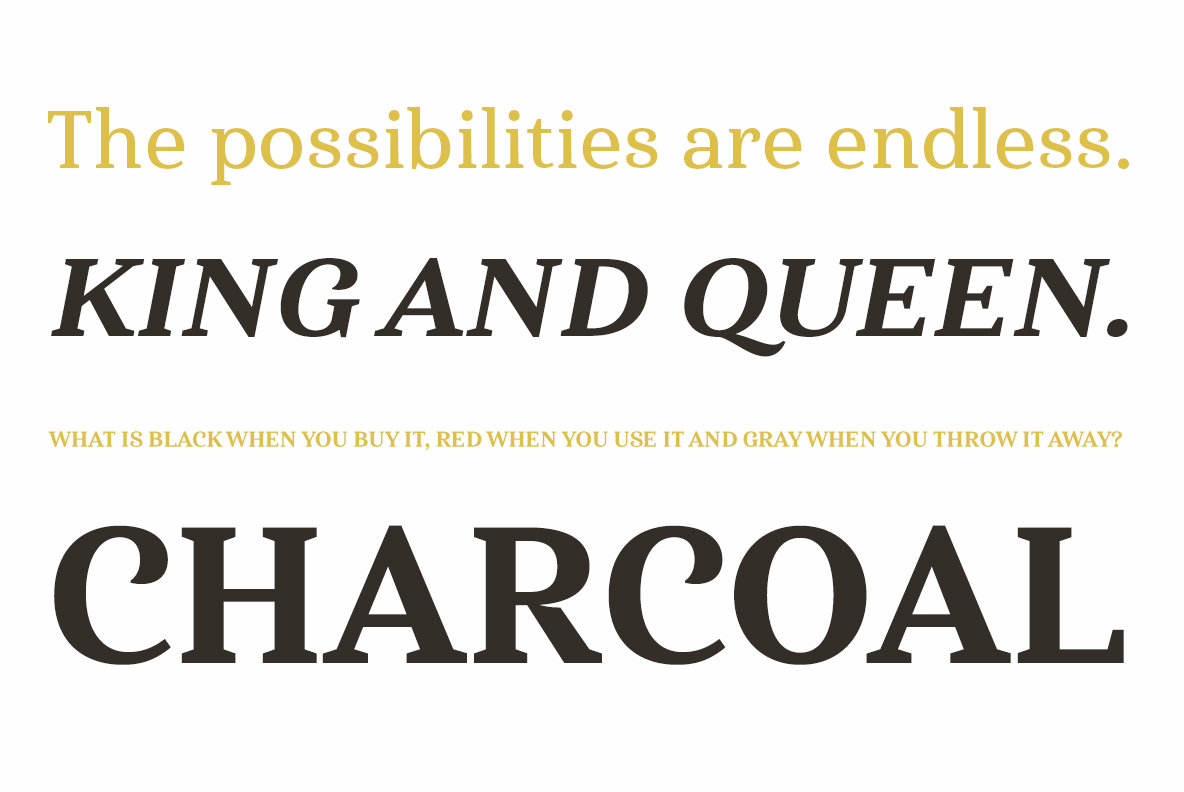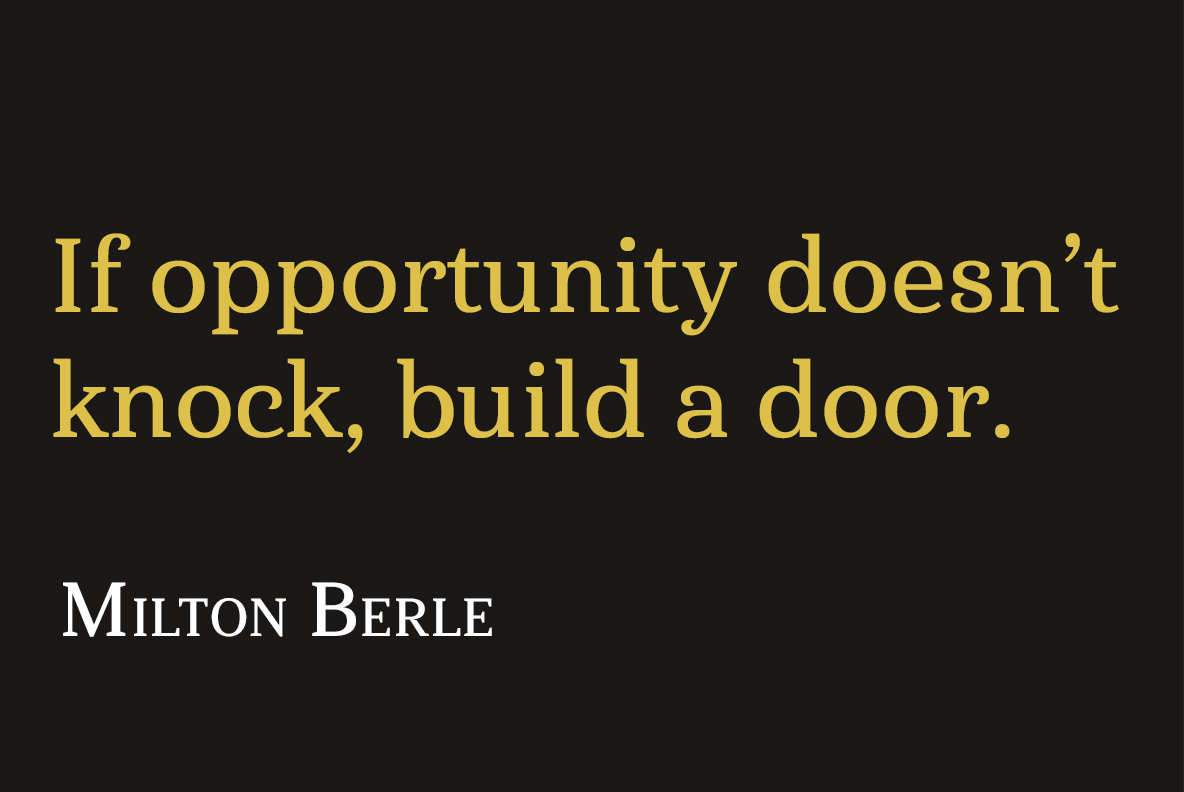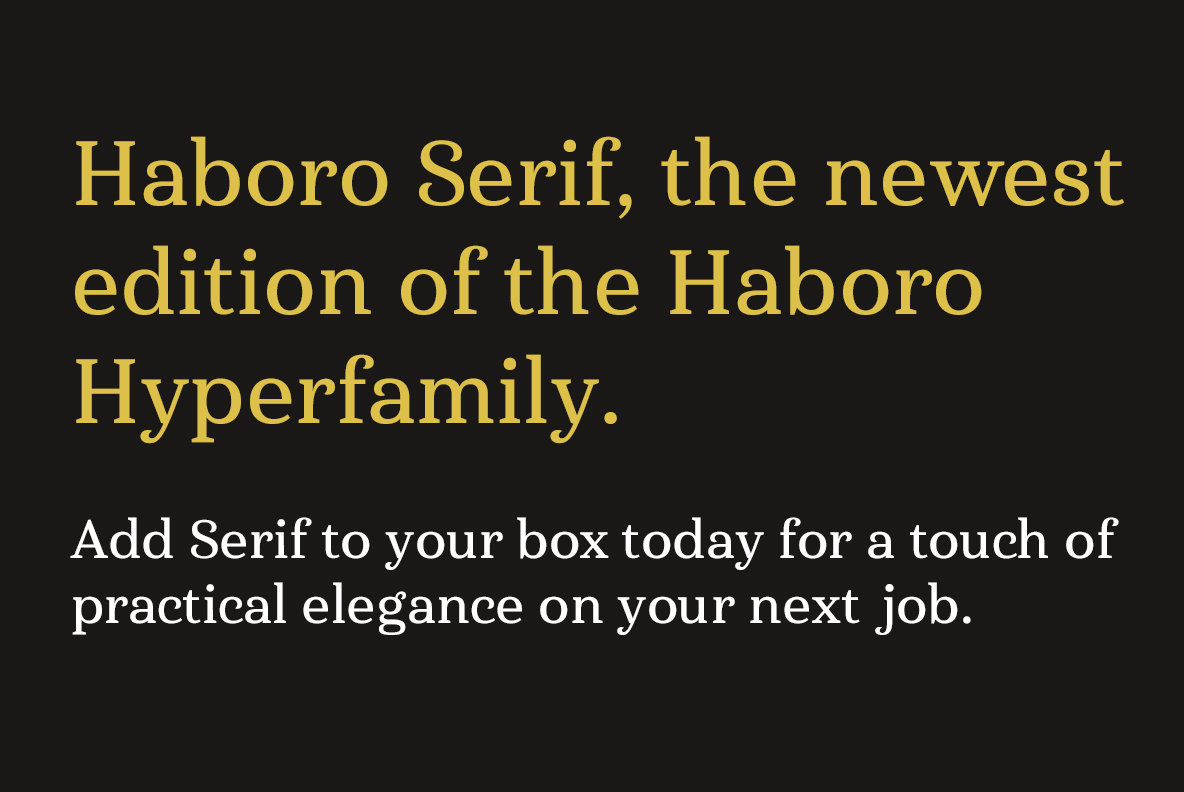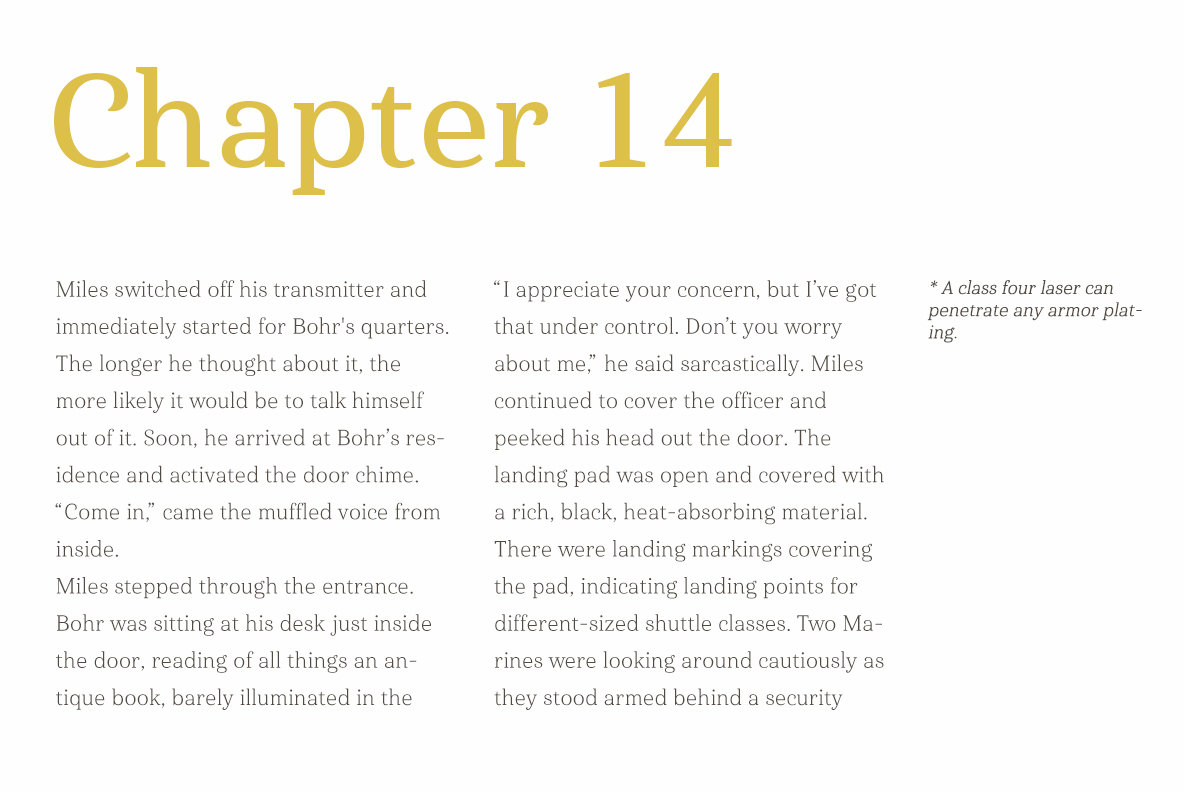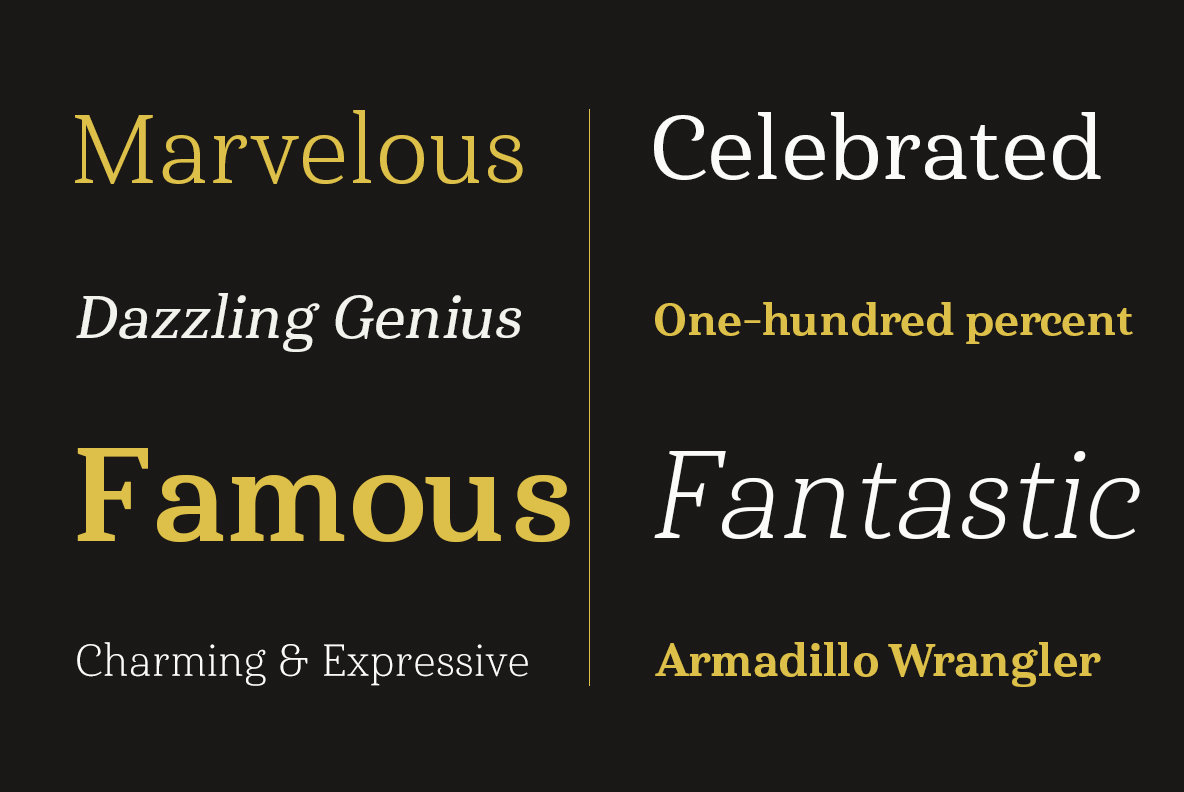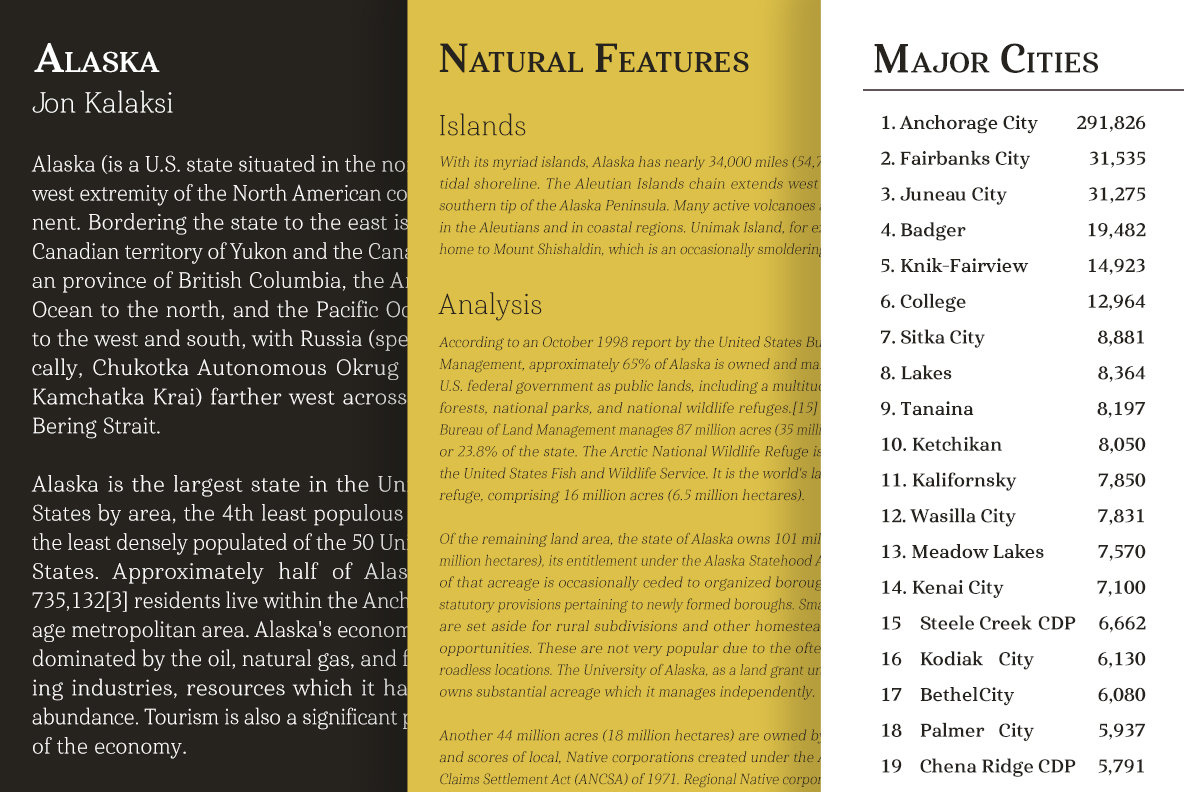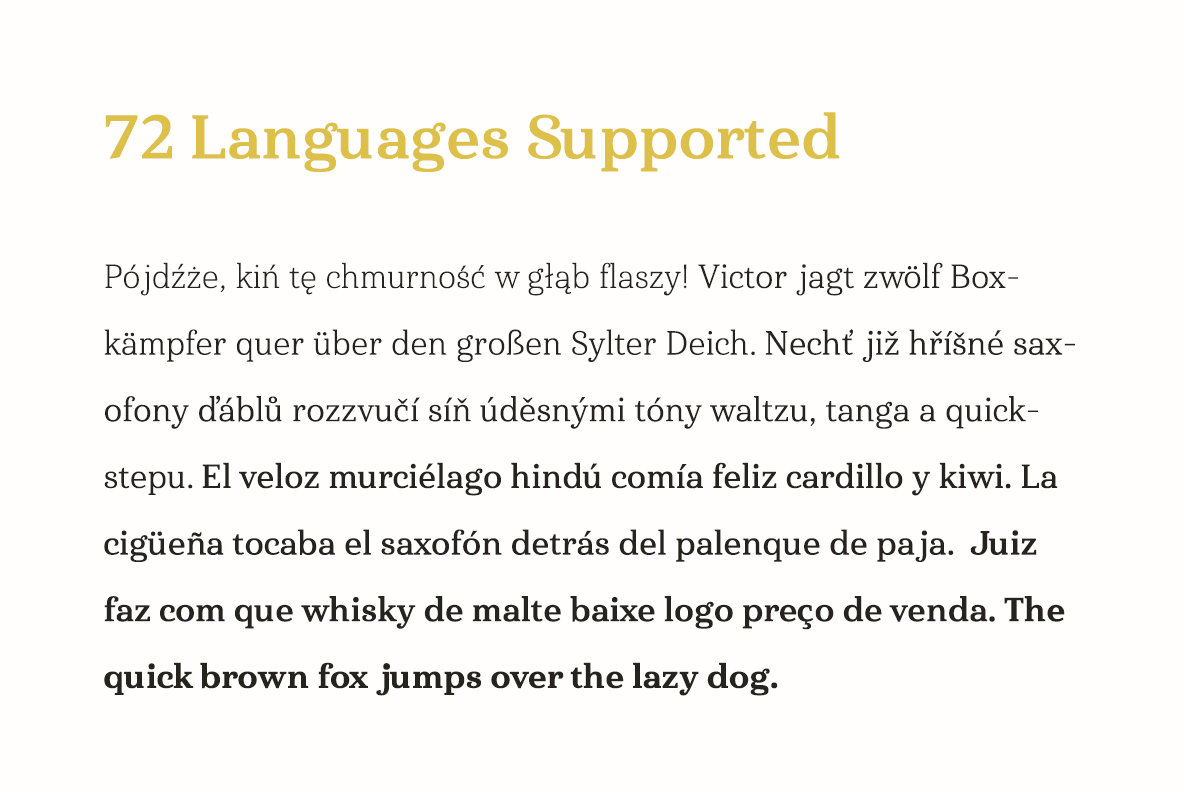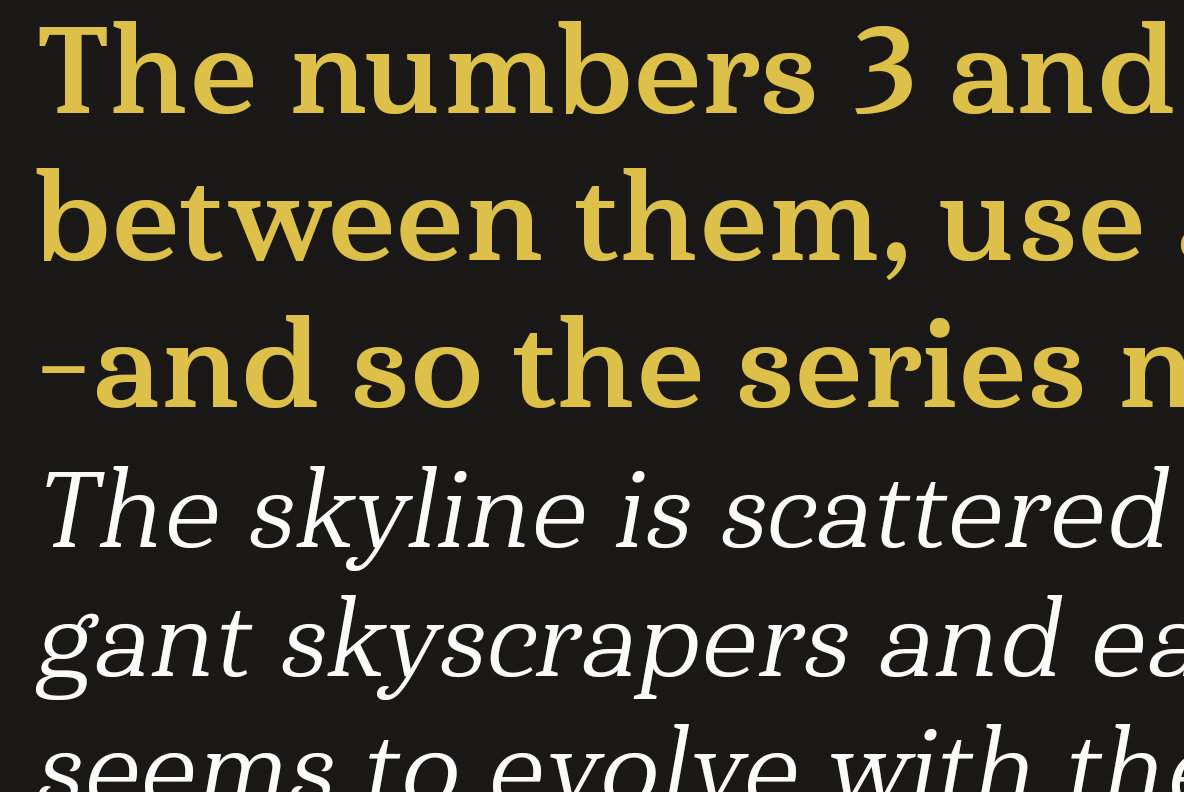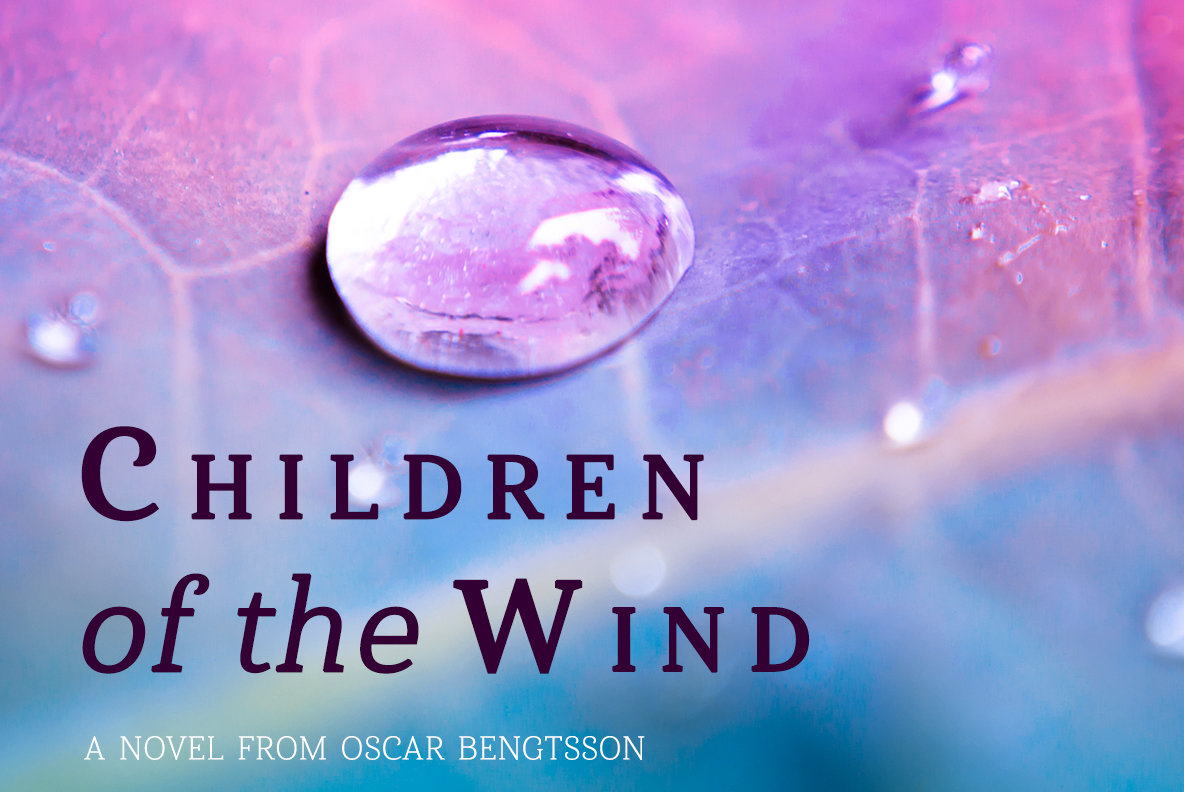
Haboro Serif Font
The polls are in. Now here by customer request--Haboro Serif, the newest edition of the Haboro Hyper family. The Haboro fonts are an outstanding upstart success from the first part of 2016. Following the release of the popular Haboro, Haboro Sans and Haboro Slab have both been welcomed additions to the family, too.
Haboro Serif works with many other members of the Haboro family as well. Try the original Haboro for your headlines, and pair your Serif text with Haboro Sans for a balanced design that appeals to the reader. Add Serif to your box today, and try this all-around “Renaissance man” of a typeface for a touch of practical elegance on your next job.